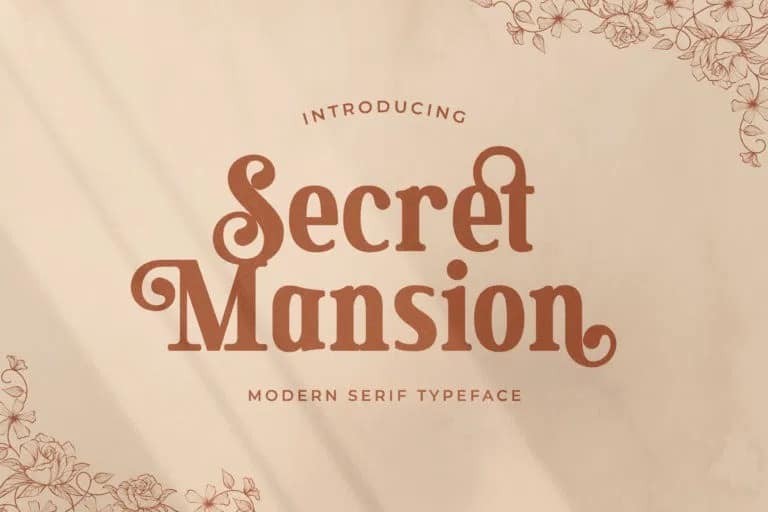
Secret Mansion Font
Secret Mansion Serif Font is a modern serif style with unique alternates feel nice balanced. Provide many variant ligatures style make the design letter looks incredible. Elegantly crafted and easily be matched to an incredibly large set of projects. Use Secret Mansion to achieve an exquisite, yet subtle look and maximum versatility.